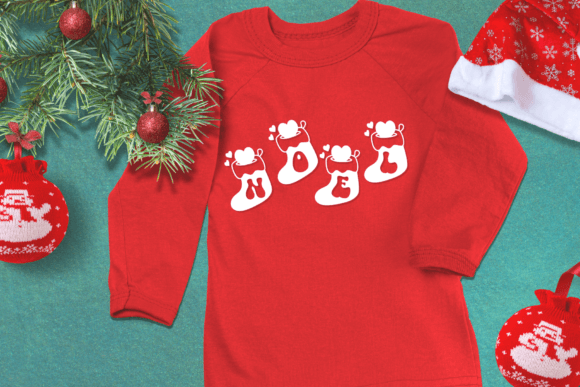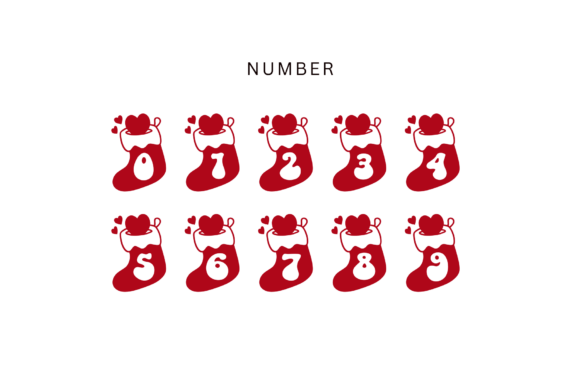
Christmas Sock Font
Christmas Sock is a festive and fun decorative font, perfect for adding a touch of holiday cheer to your designs. With its cute stocking shape and playful lines, this font is ideal for creating Christmas cards, invitations, and other holiday-themed graphics.